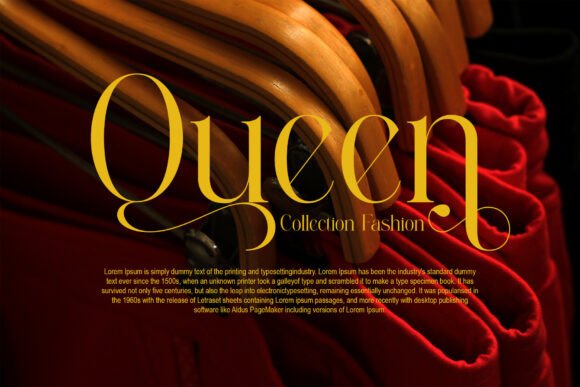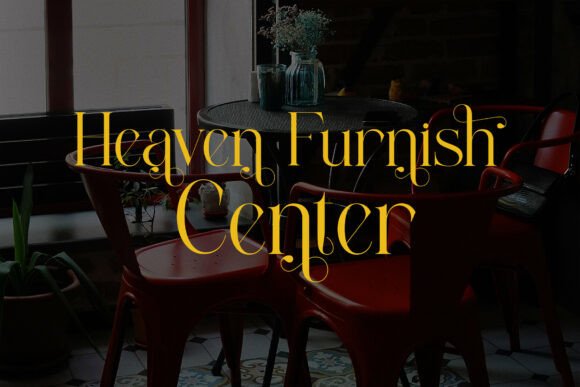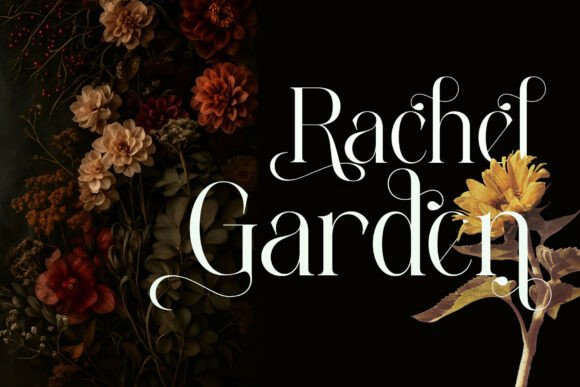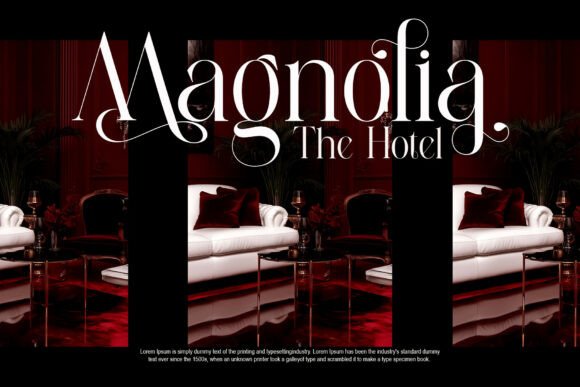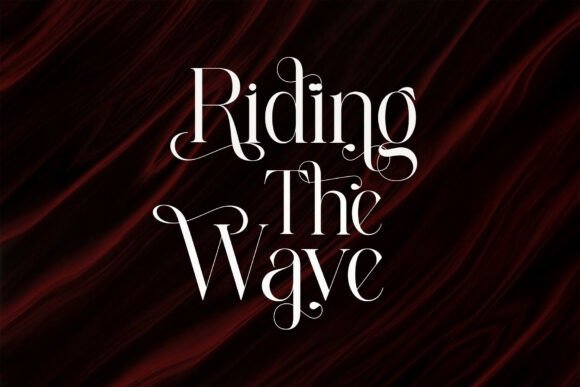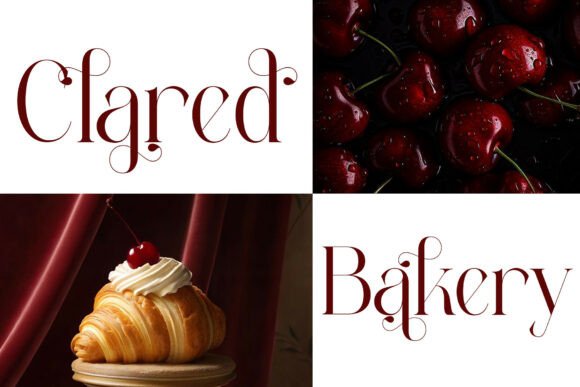
Introduction to Replice Font
As designers, we’ve all been there – staring at a blank canvas, trying to find the perfect font to bring our creative project to life. The search for that elusive, elegant serif font can be a daunting task, but what if I told you that your search is over? Enter Replice Font, a stunning modern serif font that exudes timeless sophistication and refined charm. Inspired by the delicate beauty of fresh blooms, Replice Font is the perfect addition to any high-end branding, floral theme, or fashion editorial.
With its bold yet soft character, Replice Font balances traditional serif styles with a contemporary twist, making it a valuable resource for designers seeking to elevate their designs. Whether you’re working on a wedding invitation, upscale packaging, or a fashion magazine spread, Replice Font is sure to bring a touch of luxury and elegance to your work.
Replice Font
- High-quality design resource with a unique, modern aesthetic perfect for creative projects.
- Includes a range of glyphs and characters, ideal for use in logos, branding, and typography.
Honest Review: Replice Font
I recently had the chance to try out the Replice Font, and I have to say, I was quite impressed. As a designer, I’m always on the lookout for high-quality design resources that can elevate my creative projects.
The Replice Font also features a transparent background, which is a huge plus for designers who need to create graphics with complex backgrounds. This feature makes it easy to customize the font to fit in with any design.
- Range of weights and styles
- Some users may find the font too ornate
Overall, I think the Replice Font is a great addition to any designer’s toolkit. While it may have some limitations, the benefits far outweigh the drawbacks. I would definitely recommend it to anyone looking for a high-quality, versatile font.
Replice Font is ideal for a wide range of creative projects, including logos, branding materials, and marketing collateral. It’s also great for creating custom typography for websites and social media graphics.